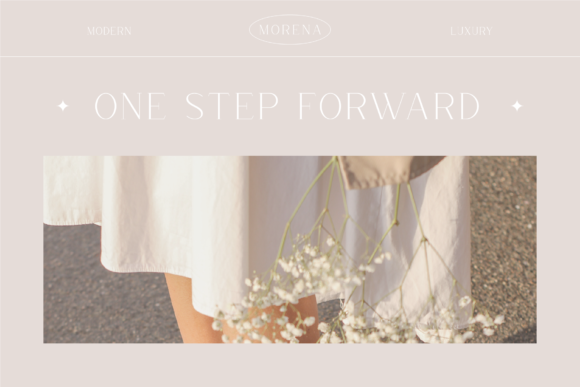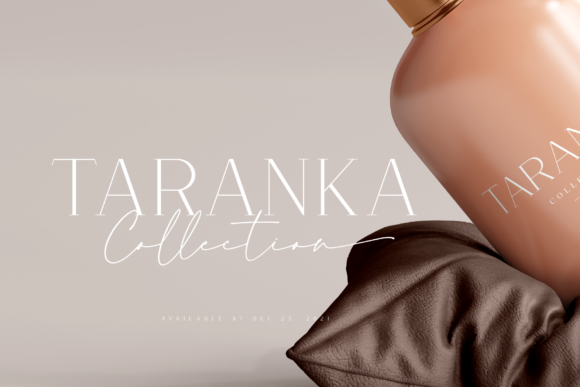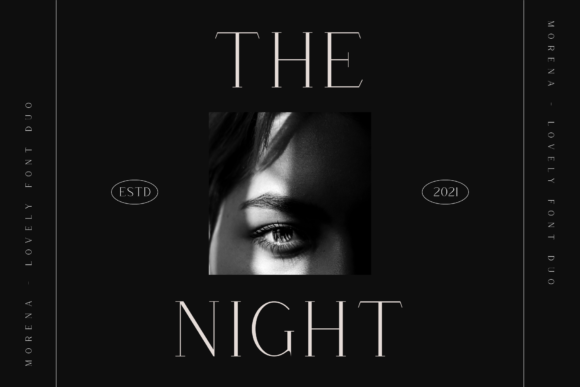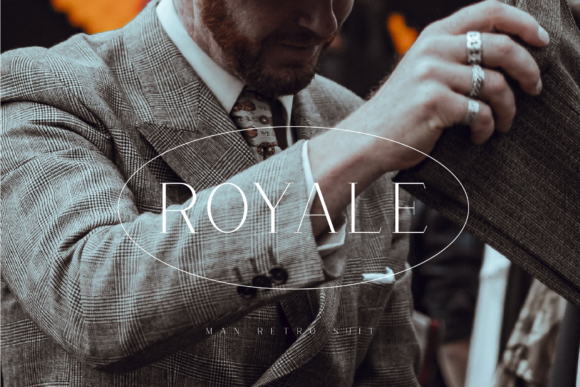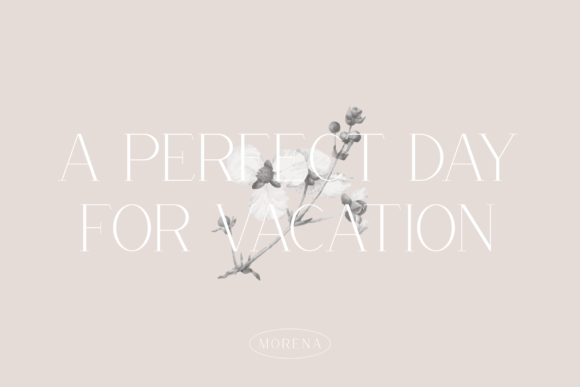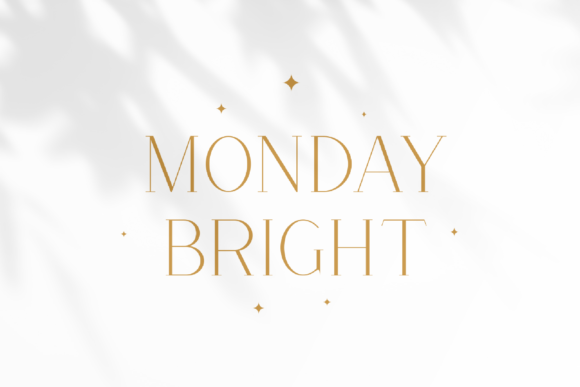
Introduction to Morena Font
As a designer, there’s nothing quite like the thrill of bringing a creative project to life. You’ve poured your heart and soul into the design, and it’s finally time to add the finishing touches. That’s when you remember – the perfect font can make all the difference. For me, it’s always been about finding that one font that elevates my design from good to great. And that’s exactly what I found with the Morena Font – a stunning duo of fonts that work together in perfect harmony.
With its PUA encoding, accessing all glyphs and swashes is a breeze, allowing you to add an extra layer of personality to your design. Whether you’re working on a project with a transparent background or a high-quality print, the Morena Font is sure to be a valuable design resource. And the best part? It’s available for free download, making it an absolute must-have for any designer looking to take their projects to the next level.
Key Features of Morena Font
- Features a unique and modern design style, making it perfect for contemporary creative projects.
Honest Review: Morena Font
As a designer, I’m always on the lookout for high-quality design resources that can elevate my creative projects. The Morena Font caught my attention with its elegant and modern aesthetic, making it a great addition to any design portfolio.
- ✨ Great for creating a cohesive brand identity with its sleek and sophisticated design
Overall, I’m impressed with the Morena Font’s potential as a design resource. While it may have some limitations, its high-quality design and versatility make it a great choice for creative projects. I recommend it for designers who want a clean and modern font that can add a touch of sophistication to their designs.
Morena Font is commonly used in creative projects such as logo design, branding, and marketing materials. Its unique style and high-quality design make it an excellent choice for designers looking to add a touch of sophistication to their work.